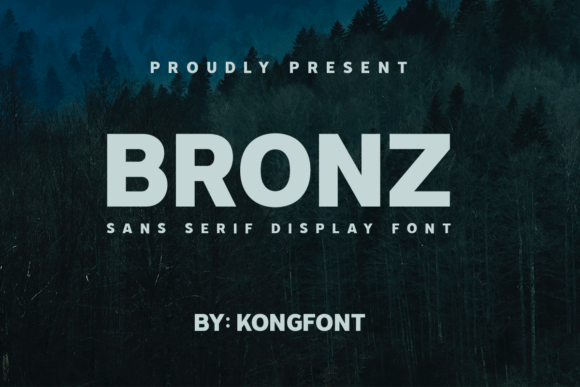
I still remember the frustration of working on a project, hours spent crafting the perfect design, only to be held back by one thing: the font. My client wanted something modern, sleek, and professional, but I just couldn’t seem to find the right fit. That was until I stumbled upon the Bronz Font – a game-changer for any designer looking for a clean, modern look.
First Impressions: What I Love About Bronz Font
The Bronz Sans Serif Font offers a sleek, geometric design that instantly elevates any project. Here are just a few things I love about it:
- ✨ **Clean and modern aesthetic**: Perfect for tech, corporate branding, websites, and minimalist designs.
- ✅ **Timeless and versatile**: Works well in a variety of contexts, from digital to print.
- 💡 **PUA encoded**: Easy access to all the cute glyphs and swashes.
- 📈 **High legibility**: Perfect for body text or headings.
The Not-So-Perfect: Small Quirks and Limitations
No font is perfect, and Bronz Font is no exception. Here are a few things to keep in mind:
- 🤔 **Limited serif options**: As a sans serif font, it may not be the best fit for projects requiring a more traditional look.
- ⚠️ **Some glyphs may require manual adjustment**: To get the most out of the font’s OpenType features, some manual tweaking may be necessary.
The Story Behind Bronz Font
The Bronz Font was designed with the modern designer in mind. Its creator aimed to craft a font that would be both timeless and versatile, suitable for a wide range of design projects. While the exact story behind the font’s creation is unclear, its design is undoubtedly influenced by the latest trends in modern typography.
| Font Name | Bronz Font |
| Author | fontkong |
| Is Bronz Font suitable for body text? | Yes, Bronz Font is designed to be highly legible, making it suitable for body text as well as headings. |